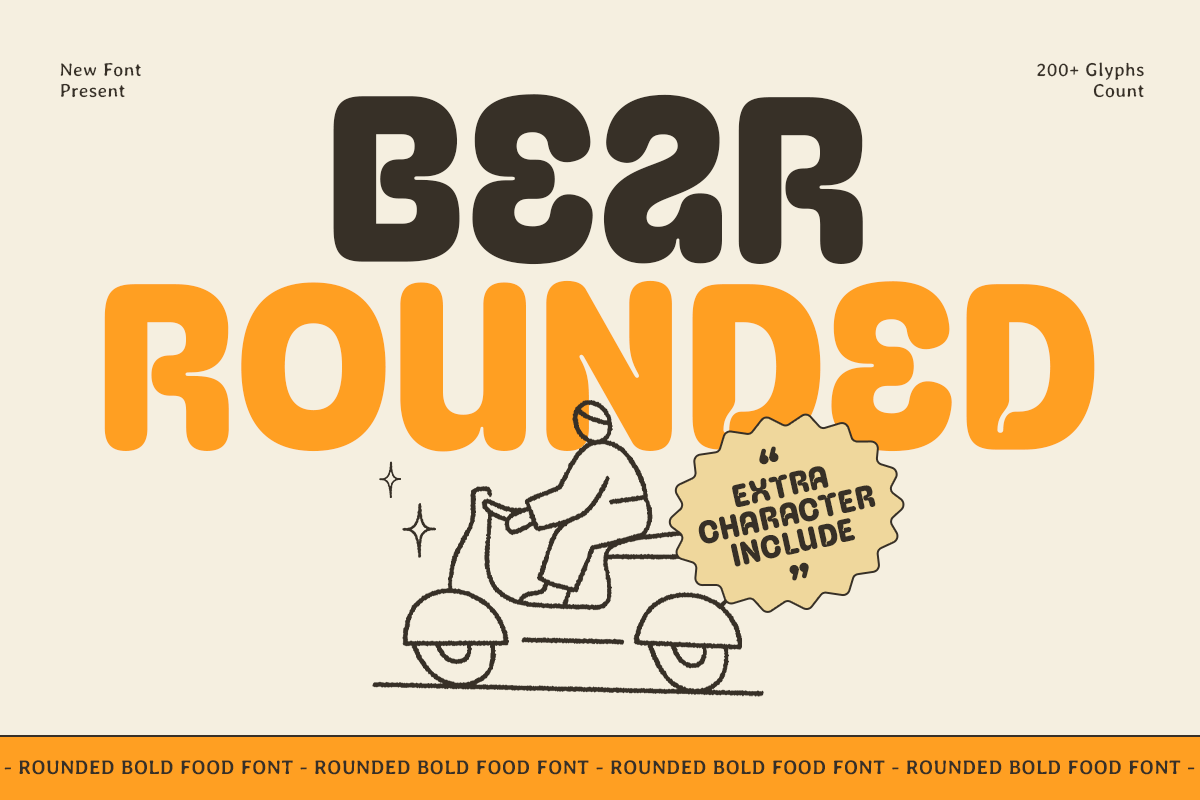
Bear Rounded
-Rounded Bold Food FontBear Rounded - Rounded Bold Food Font
BEAR ROUNDED is a rounded bold food font designed to bring warmth, friendliness, and delicious visual appeal to your creative projects. With its thick curves and ultra-smooth edges, this typeface is perfect for food branding, snack packaging, restaurant identity, and fun promotional visuals.
Crafted with a playful spirit, BEAR ROUNDED delivers a soft and approachable character that stands out in both digital and print formats. Its bold presence makes it ideal for logos, menus, posters, children’s products, and vibrant social media graphics.
Whether you're designing for bakeries, cafes, food trucks, or sweet treat brands, BEAR ROUNDED adds joyful personality and irresistible charm to any layout.
BEAR ROUNDED – Rounded Bold Food Font Features
Bold rounded letterforms perfect for food & playful design
Great for restaurant branding, packaging, menus, and kids’ products
Soft, friendly shapes with high visual appeal
Excellent readability in both small and large sizes
OpenType features for creative flexibility
Make your branding look soft, bold, and irresistibly tasty with BEAR ROUNDED – the perfect rounded font for food, fun, and playful design. 🍩✨